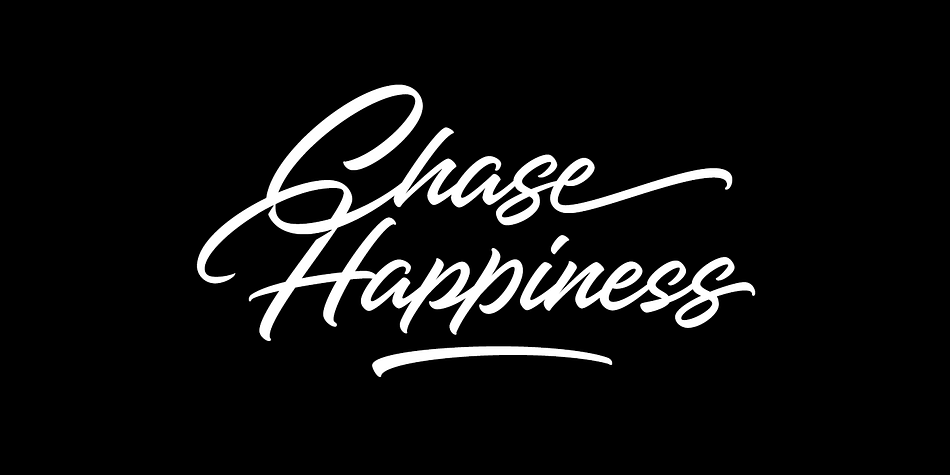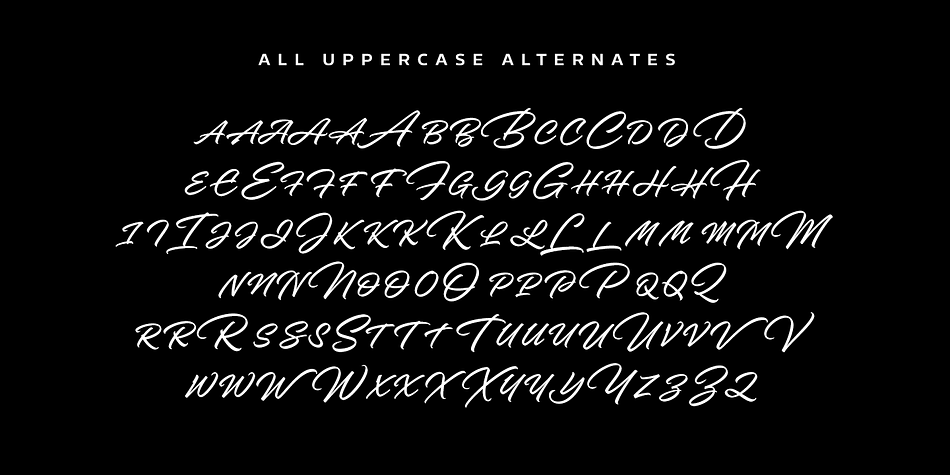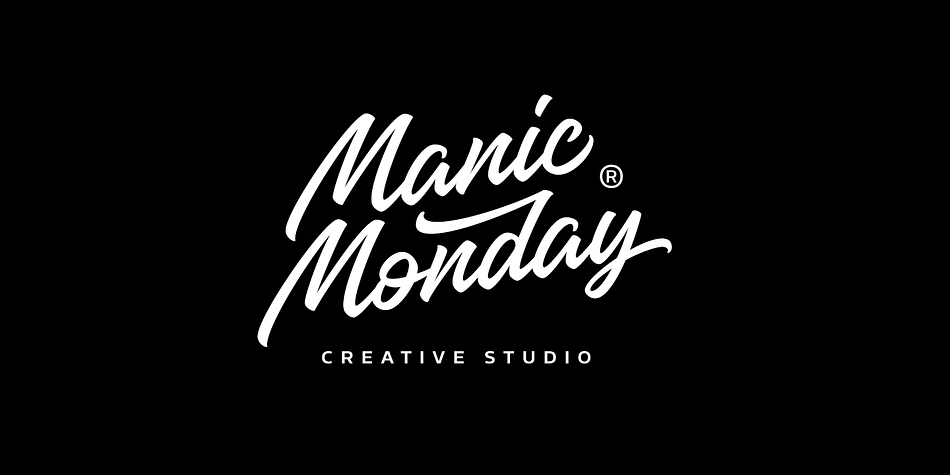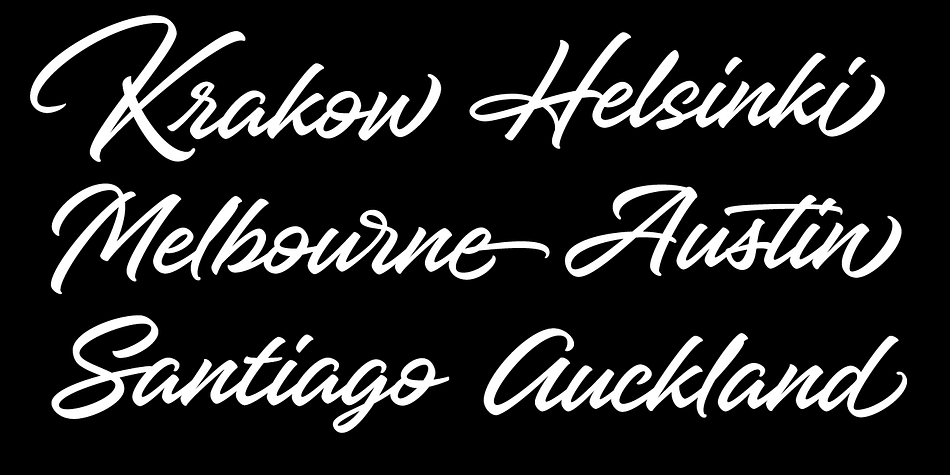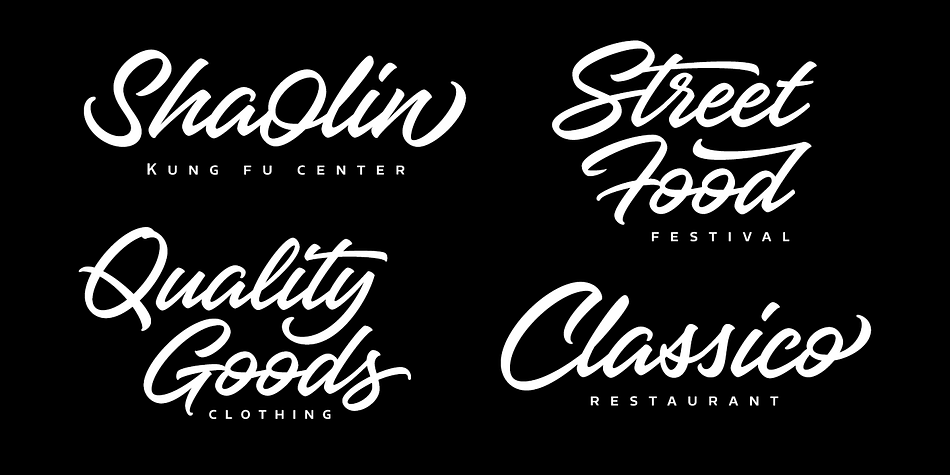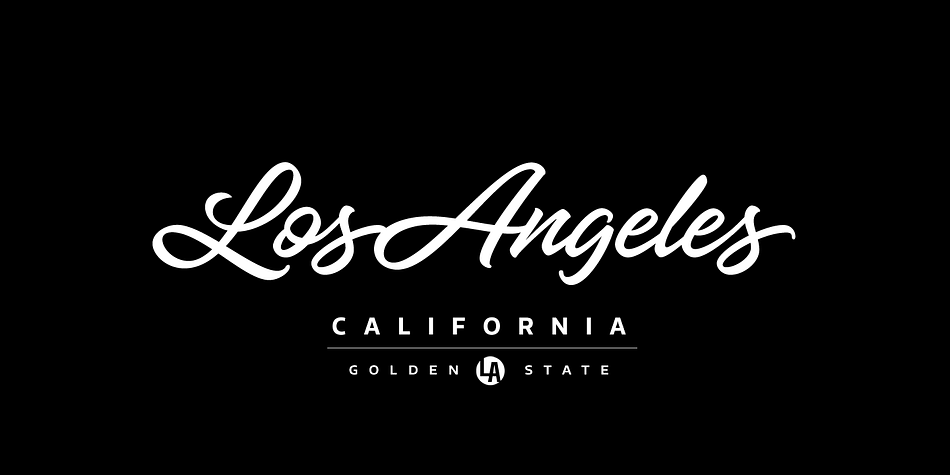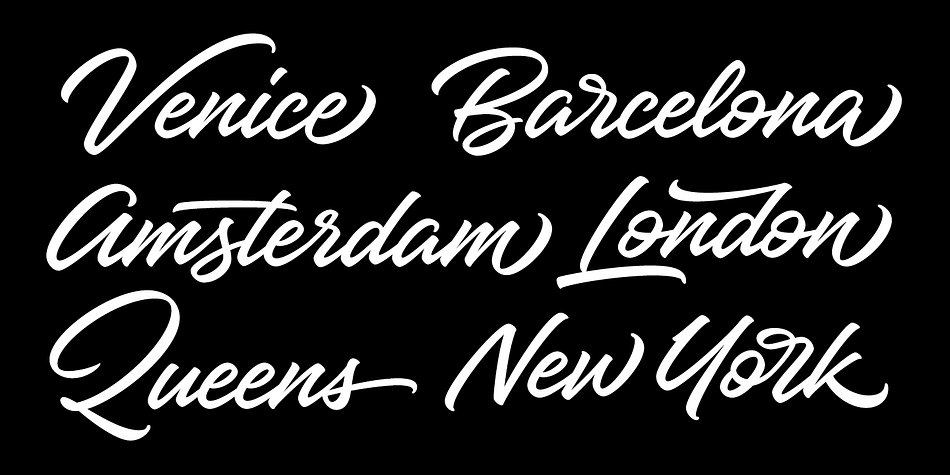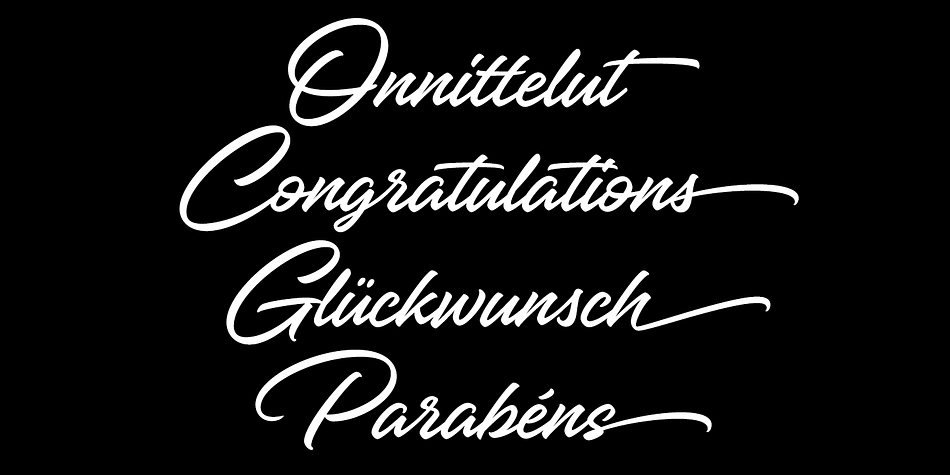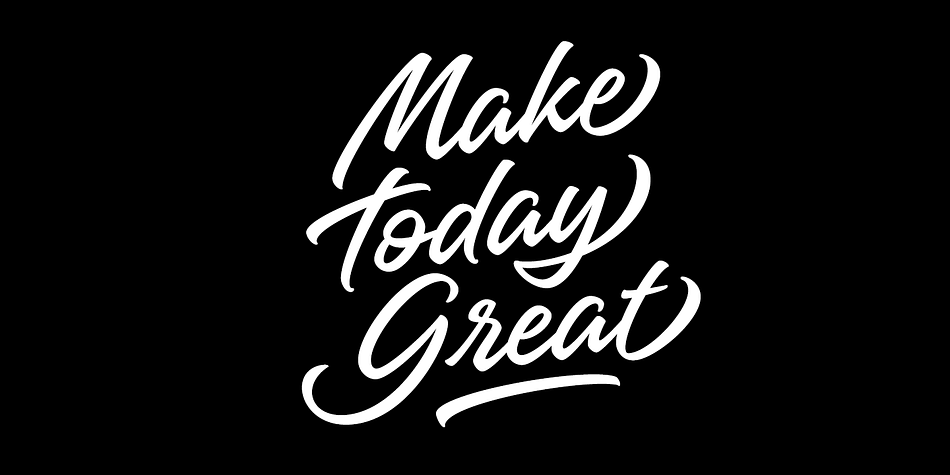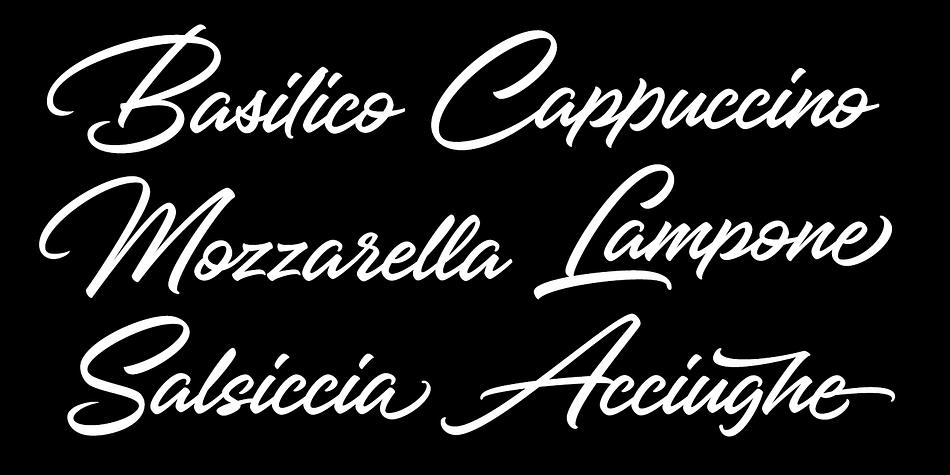
Hangbird is a brush script font published by Mika Melvas.
Hangbird is a modern brush script with lots of alternate characters, swashes and underlines. It is very versatile and has many options for customization. You can build up words and phrases that suits your specific needs and liking. That makes Hangbird a good choice for logos, titles and lettering pieces.
Hangbird has various alternatives for uppercases, several end swashes, connecting and non-connecting lowercases and options for ascenders and descenders. By altering these options you can have end result that is almost like lettering.